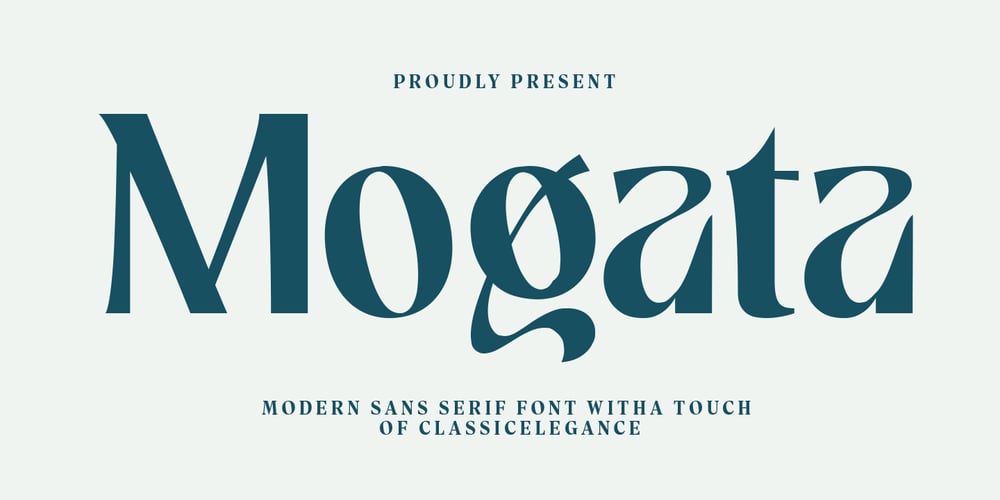
Mogata Font Family was designed by Muhammad Nasir and published by Aqeela Studio. Mogata contains 1 styles and family package options. Mogata is a modern sans-serif font that walks a captivating line between classic elegance and contemporary style. It features clean, geometric lines reminiscent of classic typography, yet with a contemporary twist that keeps it fresh and relevant. The unexpected flourishes and subtle curves add a touch of personality and charm, making it stand out from typical sans-serif fonts. Mogata is perfect for projects that require a balance of sophistication and modern edge, such as high-end branding, editorial design, or any application that demands attention with a touch of classic refinement.